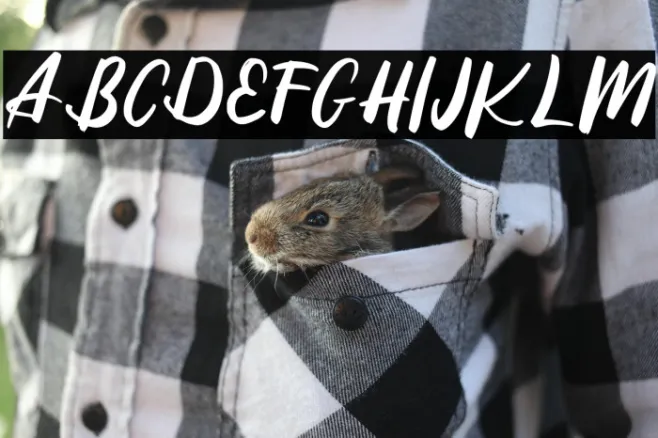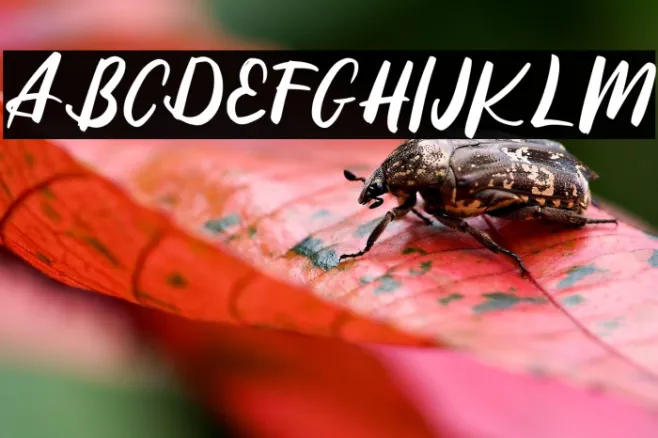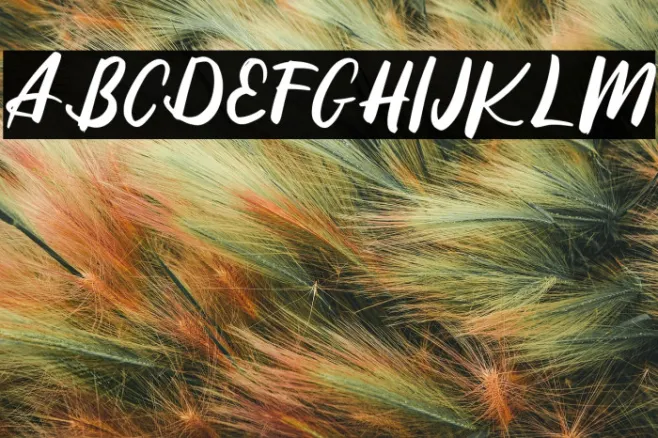
ReffinFREE Font
This font features a dynamic and expressive handwritten style, characterized by its fluid and bold strokes. The letters exhibit a natural flow with varying thickness, giving it a lively and energetic appearance. The uppercase and lowercase letters maintain a consistent style, with a slight slant that adds to its casual and informal feel. The characters are well-spaced, ensuring readability while retaining the artistic flair typical of script fonts. This font is ideal for projects that require a personal touch, such as invitations, greeting cards, and branding materials.
A bold, expressive handwritten script with fluid strokes.
- Font: ReffinFREE
- Proposed Projects: Ideal for invitations, greeting cards, branding, and personal projects.
- Category: Script
- Use Case: Logos, Headlines, Invitations